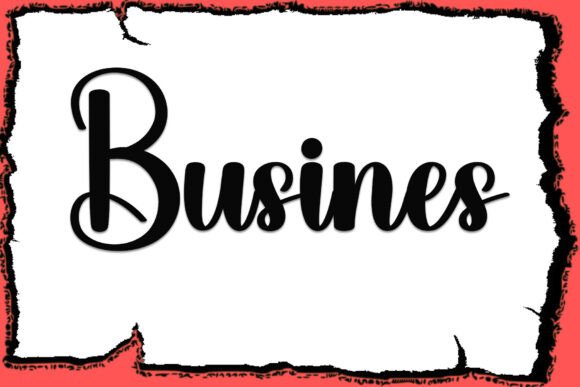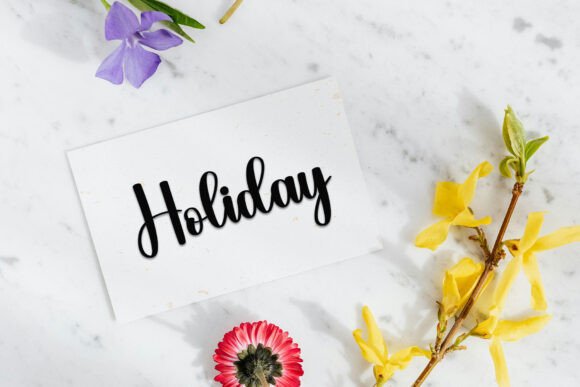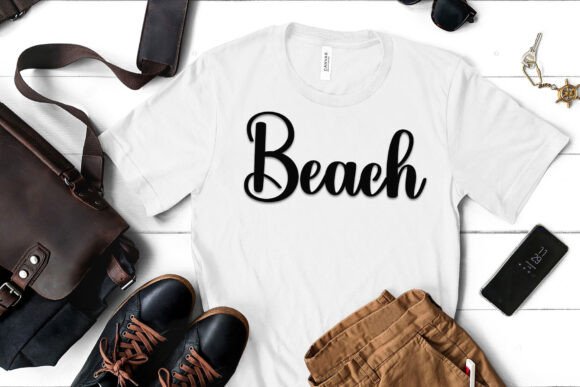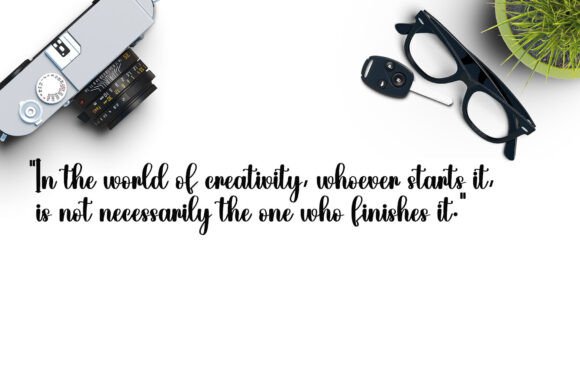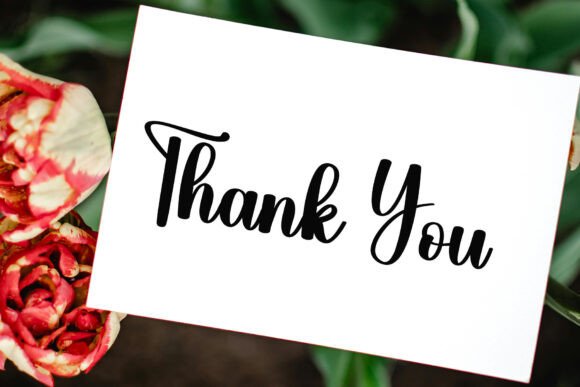
Adding a Touch of Whimsy to Your Designs
Have you ever been working on a design project, and you just can’t seem to find the perfect font to capture the essence of your idea? Maybe you’re creating a romantic wedding invitation, or designing a brand new logo for a fashion brand. Whatever the project, the right font can make all the difference.
Enter the Doodle Designer Font, a sweet and cursive handwritten font that is sure to add a joyful and romantic touch to any design. With its gentle, flowing lines and elegant flair, this font is perfect for adding a touch of whimsy to your projects. Whether you’re a seasoned designer or just starting out, the Doodle Designer Font is a valuable addition to your toolkit, offering a versatile and stylish solution for any design need.
Doodle Designer Font Key Features
• Font Style: Doodle Designer Font is a hand-drawn, whimsical, and playful font, ideal for creative and artistic projects.
• Character Set: The font includes a wide range of characters, including uppercase and lowercase letters, numbers, punctuation marks, and special characters.
• Unique Characteristics: Doodle Designer Font features a unique, hand-drawn design with subtle imperfections, giving it a personal and artistic touch.
Doodle Designer Font Review
I’ve had the chance to work with the Doodle Designer Font, and here’s my honest take on it.
The Doodle Designer Font is a unique and creative solution for designers looking for a playful, hand-drawn feel. Its versatility makes it suitable for a wide range of projects, from children’s books to advertising materials.
• Customizable: The font allows for easy customization, making it a great option for branding and rebranding.
• Fun and Whimsical: The font’s playful nature adds a touch of personality to any project.
• Highly Legible: Despite its hand-drawn feel, the font is surprisingly easy to read.
While the Doodle Designer Font is a great option for many projects, it may not be the best choice for every situation.
• Limited Style Options: While the font is customizable, the style options are somewhat limited.
• May Not Be Suitable for Formal Projects: The font’s playful nature may not be suitable for formal projects or professional branding.
The Doodle Designer Font is a great option for designers looking for a unique and creative solution. While it may have some limitations, its versatility and customizability make it a valuable addition to any designer’s toolkit.
Tips for Getting the Most Out of the Doodle Designer Font
Experiment with different font sizes, colors, and spacing to achieve unique effects.
Combine the Doodle Designer Font with other design elements, such as illustrations and graphics, to create visually appealing designs.
Use the font to add a playful touch to your designs, such as in children’s books or party invitations.
The Doodle Designer Font is ideal for:
Children’s books and educational materials
Party invitations and event materials
Playful branding and marketing materials